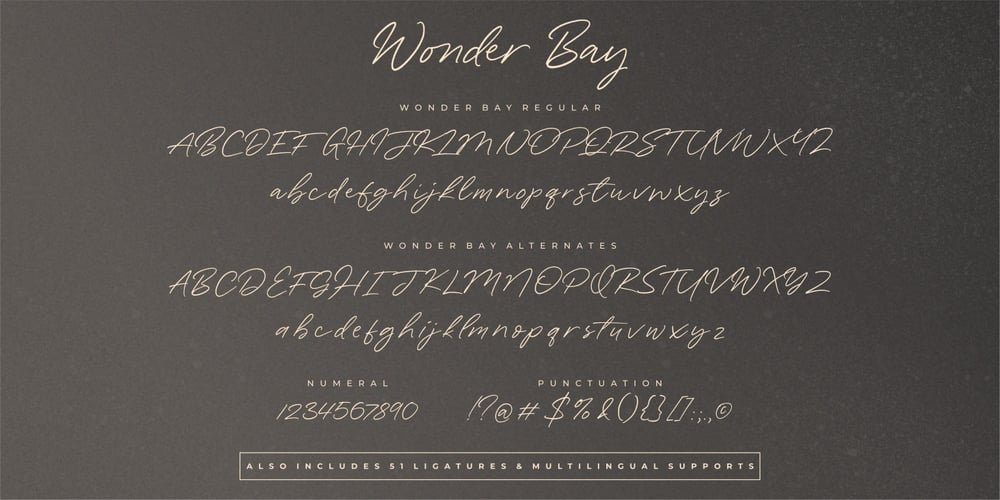
Wonder Bay Font Family was designed by Annas Alam Yahya and published by Letteralle. Wonder Bay contains 1 styles and family package options. Introducing, The Wonder Bay Font. A relaxed and warm handwritten font. Wonder Bay comes with a set of alternate, Uppercase and Lowercase, and also lots of ligatures, which will make your words look more natural. Wonder Bay is perfect for branding projects, clothing design, homeware designs, product packaging, etc. Thank You!